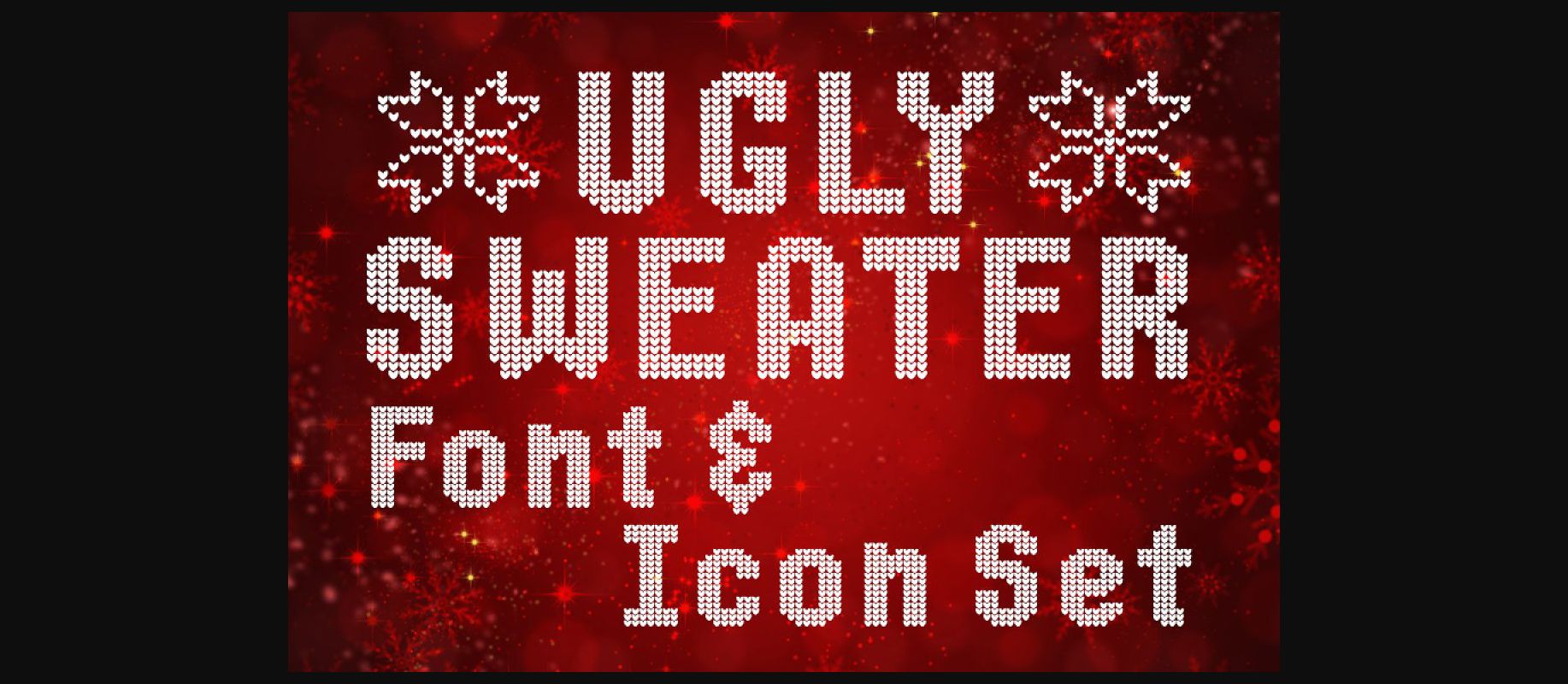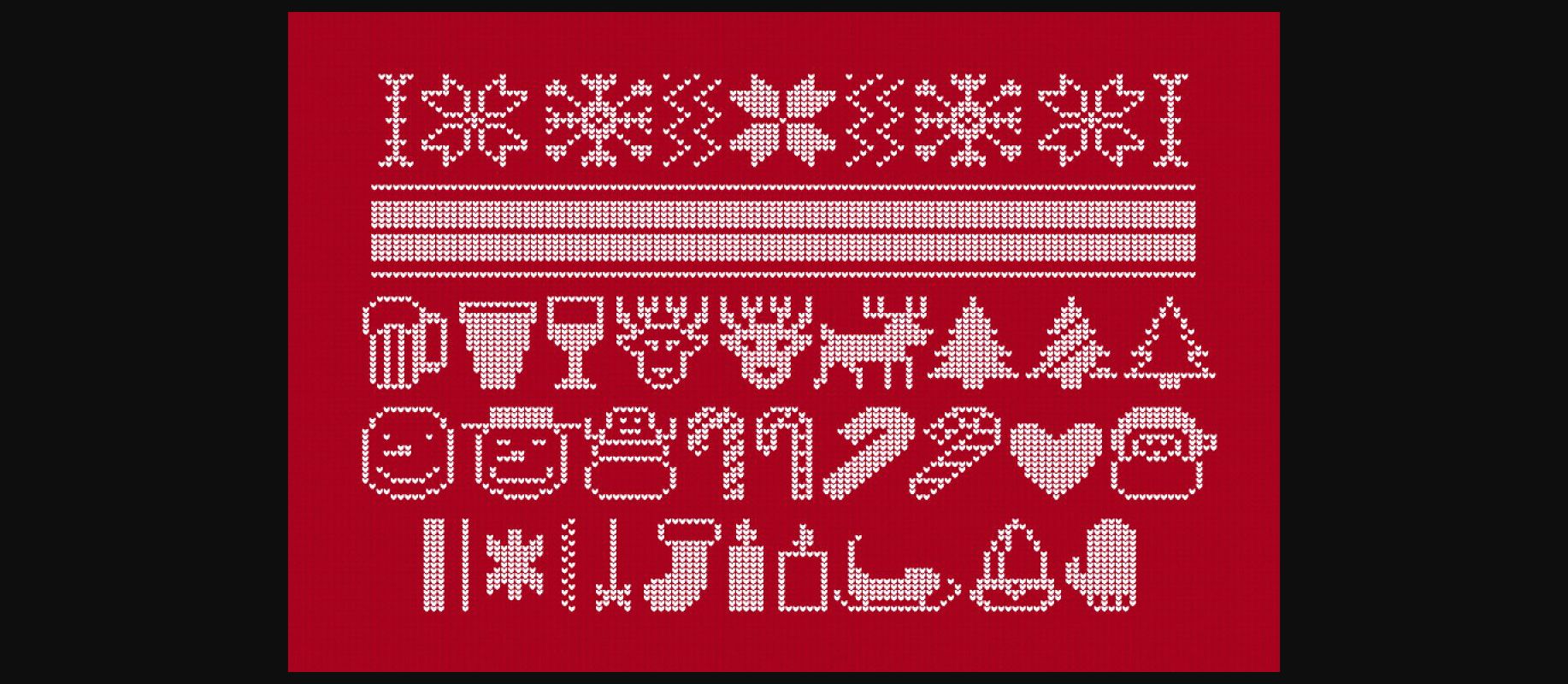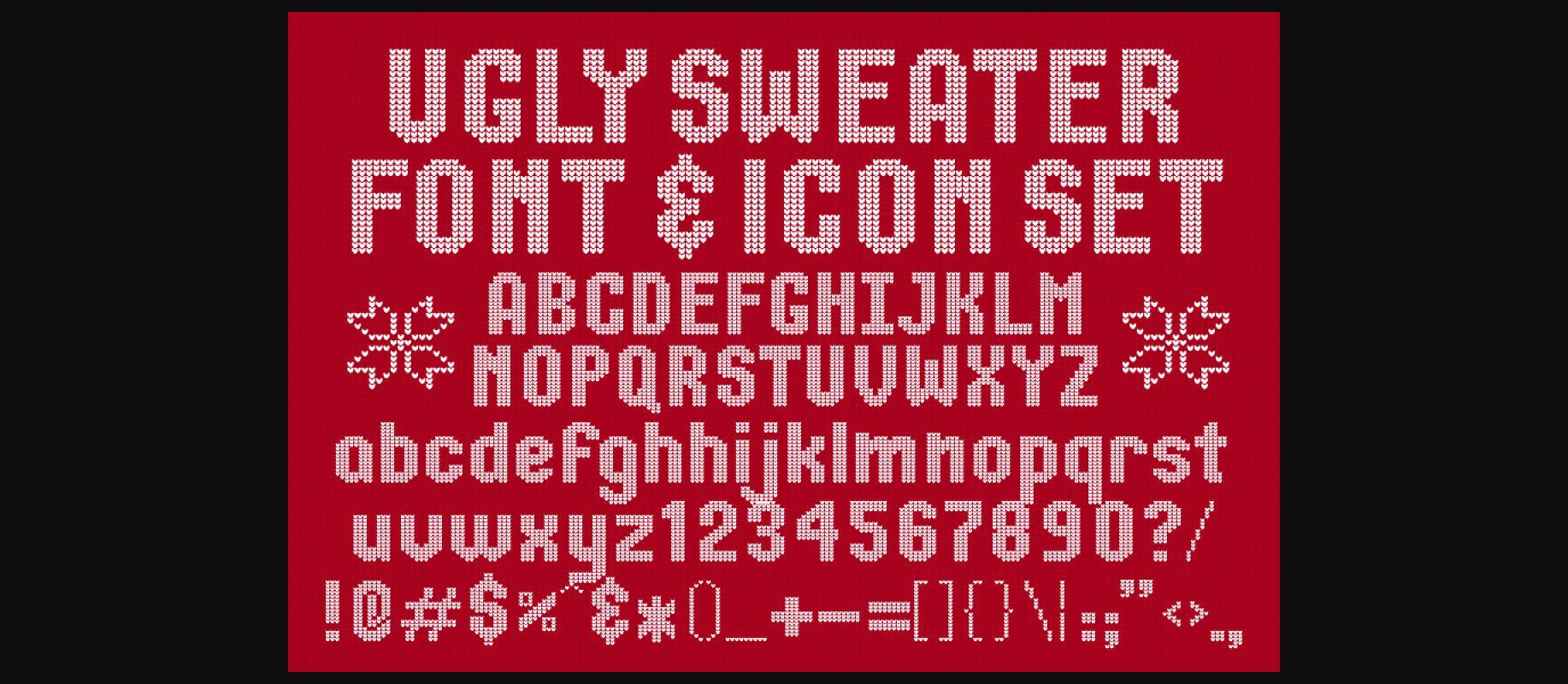
Ugly Sweater Font
About Ugly Sweater Font
Ugly Sweater is a cool and fun looking decorative font. It looks good on a variety of techno designs or creations that require a modern touch.